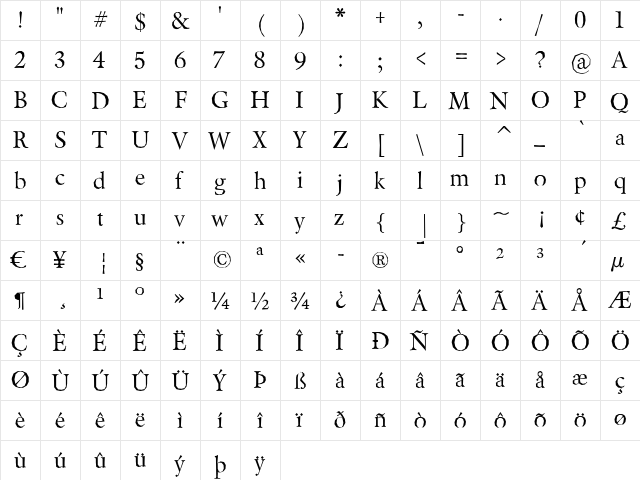
Berylium Regular
Design Context for Berylium Typeface
Berylium takes a measured approach to typography — its balanced proportions and neutral character make it a reliable workhorse for both digital and print work.